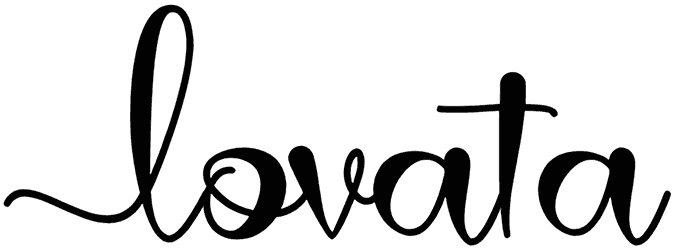
Lovata Font
Designed byVincentius Kriswandono
Lovata is an excellent font for wedding invitation cards. However, it can also be a focal point for friendly letters and main headlines. This handwritten font has an alternating flow of tight feelings that can sit in the audience’s heart in a fraction of a second.